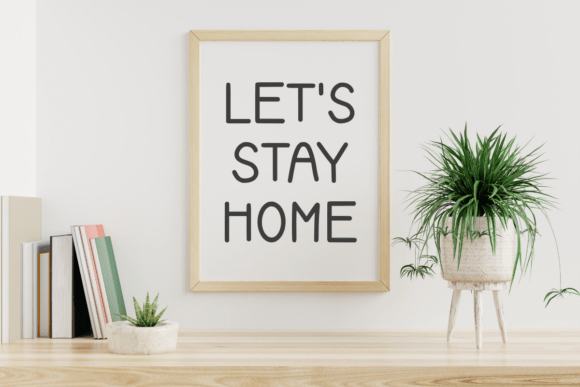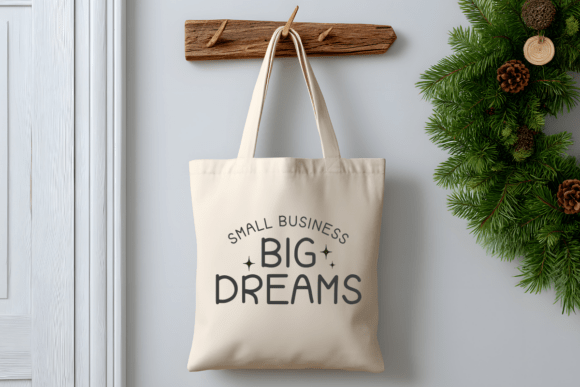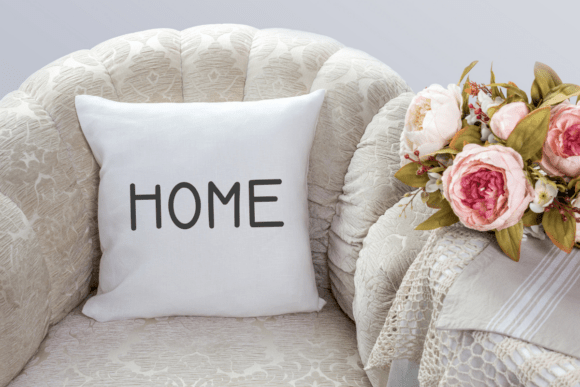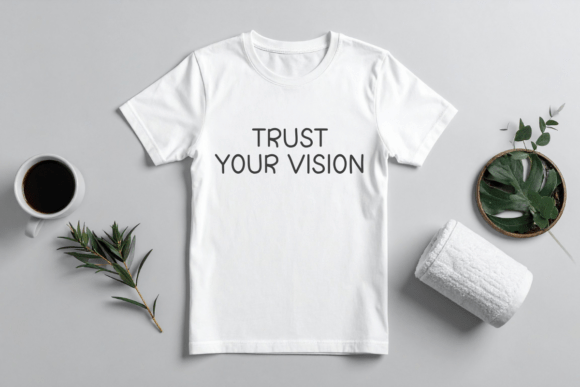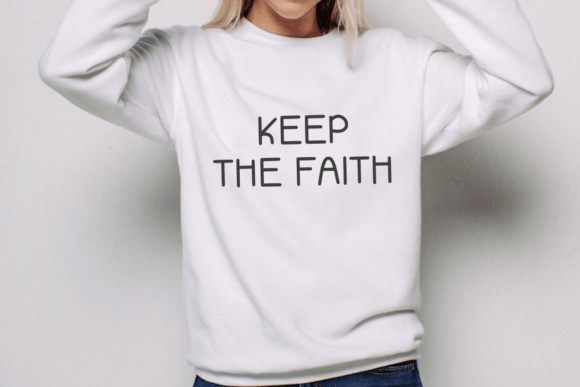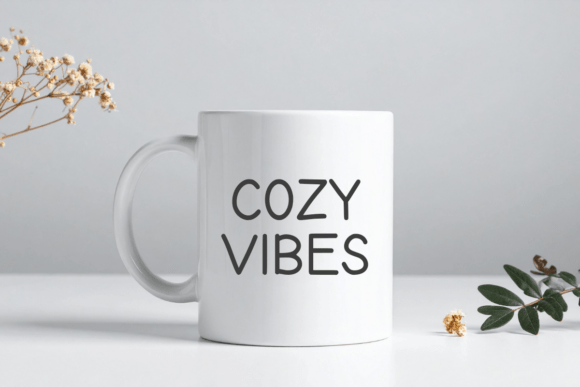
Introduction to Christ Cild Font
Do you remember the thrill of creating handmade cards and gifts for loved ones when you were a child? The joy of adding a personal touch to each project, making it truly special and unique. As a creative individual, you’re likely no stranger to the feeling of wanting to bring a personal touch to your projects. Whether it’s a birthday card, a scrapbook page, or a DIY decoration, the right font can make all the difference.
That’s where the Christ Cild Font comes in – a delightful, handcrafted font designed to add a warm and friendly feel to your creative projects. With its soft, natural look and smooth curves, this font is perfect for crafters, designers, and anyone looking to add a touch of personality to their work.
Key Features of Christ Cild Font
- High-quality font design, ideal for creative projects that require a unique touch.
- Unique characteristics, including a distinctive aesthetic and style, making it a standout design resource.
Honest Review: Christ Cild Font
As a designer, I’m always on the lookout for high-quality design resources to elevate my creative projects. The Christ Cild Font caught my attention, and I decided to give it a try.
What works well about this font is its elegant and modern design, making it perfect for a variety of applications. I particularly like its clean lines and subtle nuances, which add a touch of sophistication to any text.
- ✨ Elegant and modern design
- ✨ Clean lines and subtle nuances
However, I do have some reservations about the font’s limited character set. While it’s great for short phrases and headings, it may not be the best choice for longer blocks of text.
Overall, I think the Christ Cild Font is a solid choice for designers who want a high-quality, modern font for their creative projects. While it has some limitations, its unique design and free download make it a great resource to have in your design arsenal.
Christ Cild Font is ideal for various creative projects, including logo design, infographics, and social media graphics. Its unique design and transparent background make it a versatile design resource.
To get the most out of Christ Cild Font, experiment with different font sizes, colors, and styles to achieve a unique look. You can also pair it with other design elements, such as images and shapes, to create a visually appealing design.